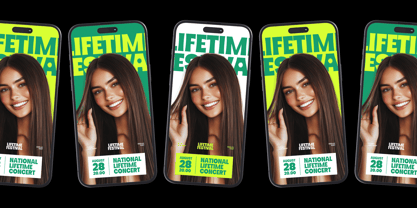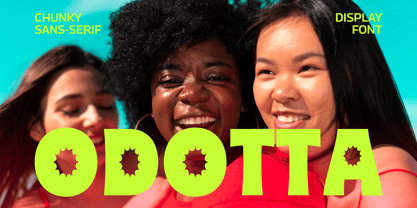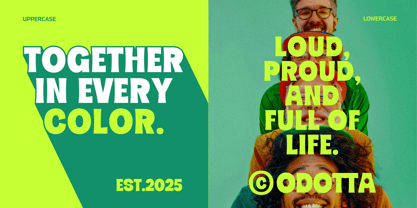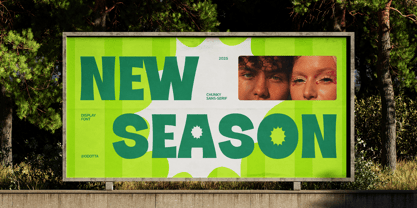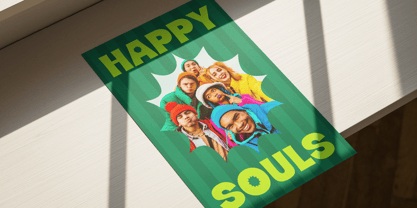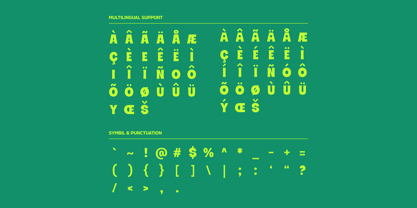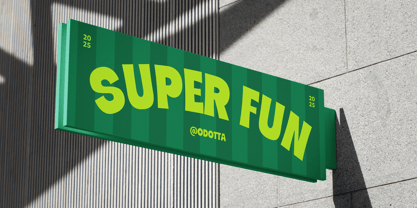
Odotta
by Slidehack
The Odotta Font Family was designed by Panca Hasan and published by Slidehack. Odotta contains 1 styles. More about this family
Odotta is a bold and robust display font with a fun, modern sans-serif style. Featuring playful cut-out details, it’s perfect for posters, logos, headlines, and creative branding. Odotta brings a vibrant, youthful energy that adds personality and impact to any design. Its attractive and energetic character helps create eye-catching visuals that feel fresh, dynamic, and engaging across digital and print projects.
Designers: Panca Hasan
Foundry: Slidehack